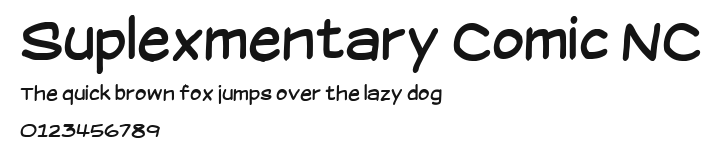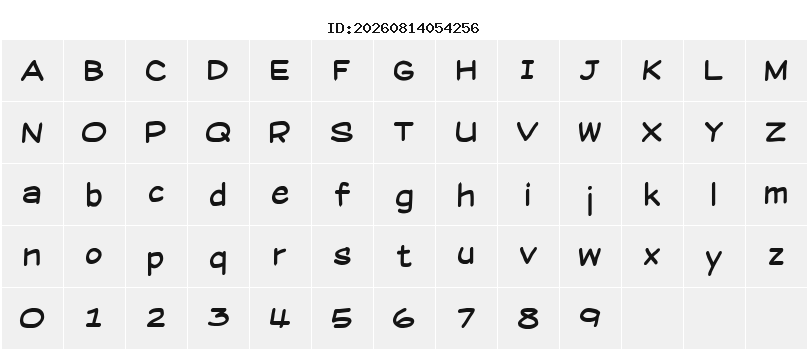
• Font Name: Suplexmentary Comic NC
• Manufacturer: Jayvee D. Enaguas
Suplexmentary Comic NC.ttf is a modern, elegant sans-serif font designed for ultimate readability and visual harmony. Perfect for branding, headlines, web design, and print materials.